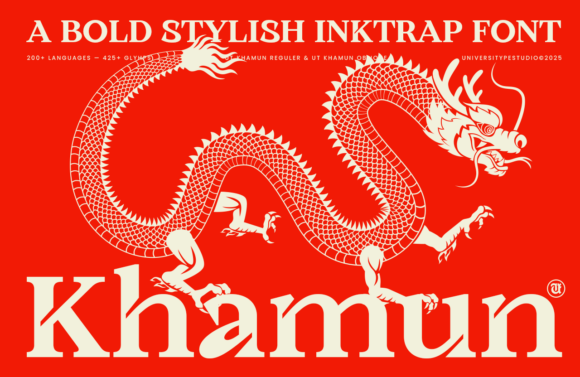
Ut Khamun: A Display Font That Anchors Editorial Calm
It was a quiet Tuesday morning—coffee still warm, the first draft of a seasonal newsletter open in my editor—and I paused mid-sentence. The header font felt off. Not wrong, exactly, but unmoored: too polite, too neutral, too easily forgotten. I’d been using a familiar serif for months, but this issue needed something with presence—not loudness, not gimmickry, but grounded authority. That’s when I opened Ut Khamun.
Ut Khamun is a display font, yes—but it doesn’t behave like one you’d reserve only for splashy banners or social media thumbnails. It’s a daring inktrap serif, yes—but its drama is measured, not theatrical. Its strokes are rich and intentional, its contrast strong without stiffness, and its rhythm carries a kind of architectural calm. There’s weight here, but also breath. It doesn’t shout; it settles in, like a well-placed anchor in a sea of scrolling content.
I tested it first on the newsletter header—a simple line: “Spring Light, Slow Rhythm.” Ut Khamun gave that phrase gravity without heaviness. The inktraps (those subtle cutouts at stroke junctions) sharpened definition at smaller sizes, while the generous x-height and open counters kept letters legible even at 24pt on mobile previews. It wasn’t just readable—it invited pause. That’s rare for a display typeface.
In editorial design, Ut Khamun shines where intention meets intimacy: chapter openers in a coaching workbook, cover titles for a printable planner, pull quotes in a digital magazine layout, or the bold headline atop a recipe ebook’s landing page. I used it for the title treatment of a wedding guide PDF—paired with a soft, warm-toned serif for body text—and noticed how effortlessly it conveyed both reverence and modernity. No extra styling needed. No faux distressing, no forced contrast. Just clarity, character, and quiet confidence.
It’s not built for long paragraphs. Ut Khamun is not a body font—and it shouldn’t be. Its strength lies in framing, not filling. Think of it as the hand that places the first stone: decisive, precise, and quietly declarative. Use it for blog headers, section dividers, ebook covers, newsletter graphics, and printable guide titles—anywhere you want to signal tone before a single word is read. Its personality is sharp but never cold, striking but never alienating. It feels editorial, not algorithmic.
Readability across formats held up beautifully. In PDF exports, Ut Khamun rendered crisply—even with embedded ligatures enabled. On screen, it performed well at 32–48pt for headers, and remained distinct (though less ideal) down to 20pt for subheads. For print materials like a bound coaching workbook or a laminated planner cover, its robust stroke weight translated cleanly, with no hint of muddiness. Mobile previews stayed sharp thanks to its thoughtful spacing and balanced proportions—not something all display fonts manage without optical sizing or manual kerning adjustments.
Pairing Ut Khamun felt intuitive. With a warm, low-contrast serif like Crimson Text or EB Garamond, it created gentle hierarchy—Ut Khamun setting the stage, the serif guiding the reader through story and substance. Against a clean, humanist sans like Inter or Lato, it offered elegant tension: structure meeting flow, tradition meeting immediacy. I avoided pairing it with other high-contrast serifs or decorative scripts—the voice became crowded. Ut Khamun doesn’t need harmony through similarity; it thrives in thoughtful contrast.
What surprised me most wasn’t how Ut Khamun looked—but how it changed my process. Choosing it slowed me down in the right way. Instead of chasing visual novelty, I started asking quieter questions: What mood does this page ask for? Where should the eye land first—and why? How much silence does this headline need around it? Ut Khamun didn’t solve those questions, but it made them easier to hear.
I’ve since used it across three real projects: a seasonal newsletter series for a slow-living blog, the cover and chapter headers of a digital magazine feature on mindful gardening, and the title treatment for a printable wellness planner. In each case, it did the same thing—anchored the design without dominating it, elevated the message without obscuring it. It didn’t make the content better, but it made the space around the content feel more considered, more hospitable.
Typography, at its best, isn’t about decoration. It’s about stewardship—of attention, of meaning, of time. Ut Khamun reminds me that a display font can be both bold and gentle, distinctive and dependable. It doesn’t try to be everything. It simply asks to be used well—and rewards that care with quiet resonance.
If you’re redesigning a blog header, crafting an ebook cover, building a printable guide, or refining your newsletter’s visual voice, Ut Khamun won’t shout for attention. But if your readers pause—even just for a second—to take in the shape of a letter, the balance of a word, the weight of a title—that’s when you’ll know it’s working.